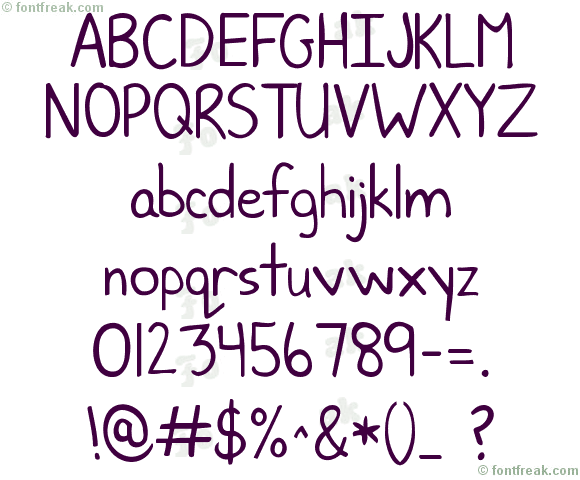
KG June Bug
About KG June Bug
KG June Bug is a delightful handwritten font created by Kimberly Geswein. This font falls into the script category, characterized by its playful and casual aesthetic. Its strokes are fluid and organic, giving it a unique charm that resembles the natural flow of handwriting. The font features a moderate stroke weight with minimal contrast, making it legible while still retaining a sense of personality. The spacing is well-balanced, allowing for easy readability without sacrificing its whimsical character. Decorative elements are present in the form of varied letter heights and quirky loops, which add to its lively appearance.
This font is particularly versatile and can be used in a variety of creative contexts. It is an excellent choice for wedding invitations, where its informal elegance can set a warm tone for the special day. Additionally, it works wonderfully for children's book covers, providing a fun and approachable look that appeals to young readers. Restaurant menus can also benefit from KG June Bug, as its friendly style invites diners to explore the offerings. Furthermore, small business owners can utilize this font in their branding materials, as it conveys a personal touch that resonates with customers.
Target audiences for KG June Bug include graphic designers seeking a unique typeface for their projects, content creators looking to enhance visual storytelling, and small business owners aiming to establish a memorable brand identity.
What sets the KG June Bug font apart is its ability to blend playful charm with readability, making it a perfect choice for projects that require a personal touch. The KG June Bug font free download allows everyone to incorporate this delightful typeface into their work, adding a sprinkle of creativity and warmth to any design.